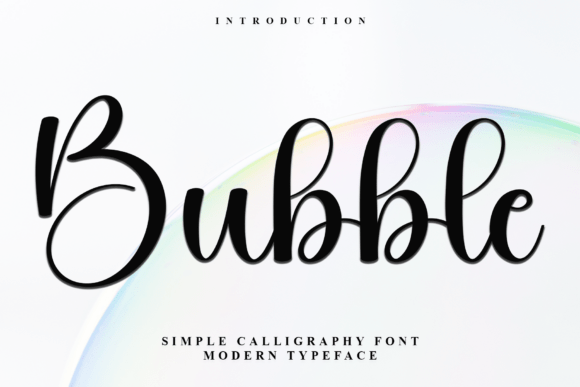
The Art of Beautiful Typography: Introducing Bubble Font Font
Have you ever stumbled upon a font that makes you stop in your tracks, and you can’t help but wonder how it was created? For me, that moment came when I saw a beautifully designed logo for a local boutique. The font used was nothing short of magical, with its soft, flowing strokes that seemed to dance across the screen. That’s when I knew I had to learn more about this enchanting font, and I’m excited to share it with you today.
Meet the Bubble Font Font, a unique and captivating font designed to add a touch of elegance to your designs. This versatile font is perfect for a wide range of creative projects, from crafts to design works, and is compatible with various applications, including Windows and open-source platforms.
As a designer, you know how valuable it is to have access to a wide range of fonts that can elevate your work. The Bubble Font Font is an excellent addition to any designer’s toolkit, offering a natural and eye-catching style that’s sure to captivate your audience.
Bubble Font Font Key Features
- Character Set: This font includes a comprehensive character set, covering Latin, Cyrillic, and Greek alphabets, as well as various punctuation marks and symbols.
- Unique Characteristics: The Bubble Font Font features a distinctive, playful design with rounded shapes and a bubbly feel, making it ideal for use in children’s books, educational materials, and other contexts where a fun, approachable tone is desired.
- Kerning and Ligatures: The font includes advanced kerning and ligature features, ensuring that text sets and words are displayed with optimal spacing and readability.
Bubble Font Font Review
Overall, I think Bubble Font Font is a decent font that could work well for certain projects. ✨ One of its strengths is its playful and whimsical feel, making it perfect for children’s books, party invitations, or any design that needs a lighthearted touch. ✨ The font is also highly customizable, allowing you to adjust the size, color, and even add special effects like glows or shadows.
However, there are a few limitations to consider. ⚠️ For one, the font can be a bit too ornate for some designs. The intricate details and rounded shapes might make it difficult to read, especially in small sizes or for long blocks of text. ⚠️ Additionally, the font might not be the best choice for formal or professional designs, as it can come across as too playful or immature.
Design Considerations
- Best used for: Children’s books, party invitations, social media graphics, and other playful designs.
- Not recommended for: Formal or professional designs, small text sizes, or long blocks of text.
Overall, I’d say Bubble Font Font is a solid choice for designers looking for a fun and playful font. Just be sure to use it in the right context and consider the limitations mentioned above.
Bubble Font Font is perfect for:
- Creating playful and whimsical designs.
- Adding a touch of nostalgia to your designs.
- Creating custom logos and branding materials.
Remember to use the font consistently throughout your design to create a cohesive look.